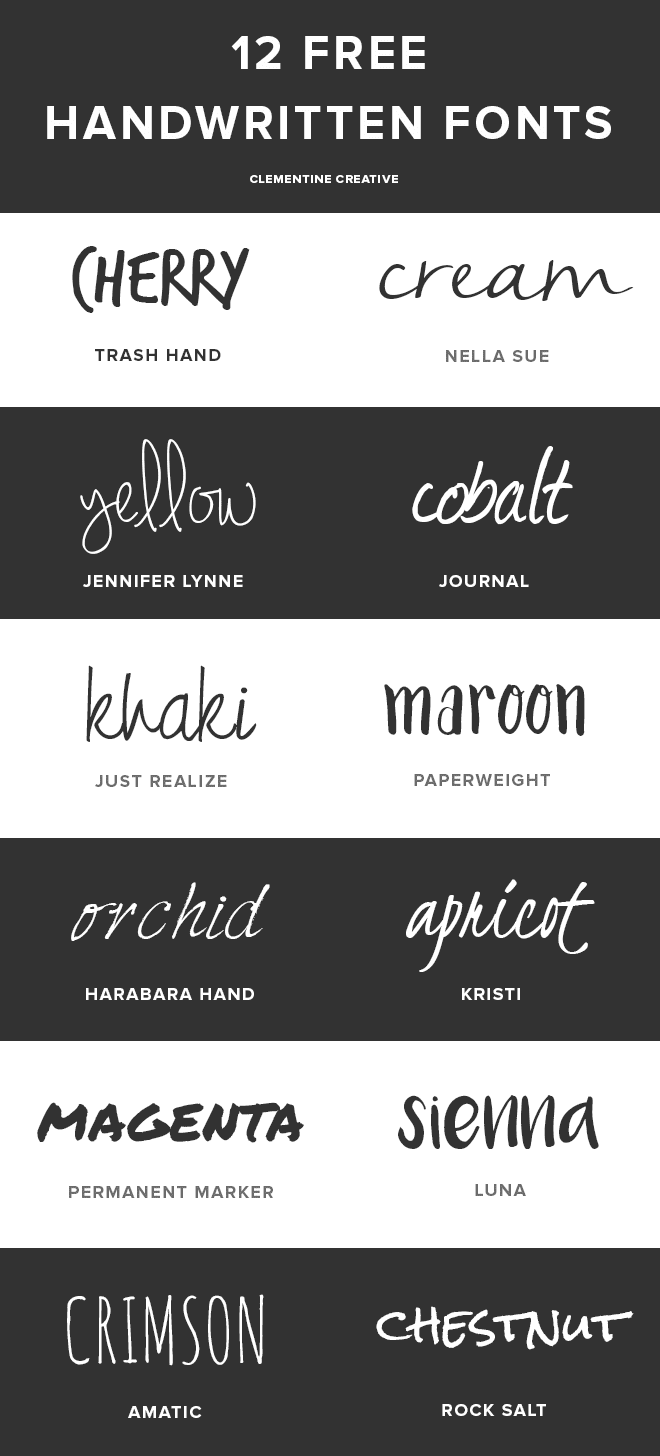
Fonts SVG PNG EPS DXF JPG AI Vector Qoutes File Handwritten Font Necklace SVG. The handwritten font has slightly skewed letters that lean both right and left. 1 2 3 4 5 6 7 8 9 10. Archive of freely downloadable fonts. Handwriting fonts are written with a pen, pencil, or marker. Browse and download handwriting fonts and generate images from custom text with handwriting fonts. Handwritten or font jewelry cute custom necklace meaningful personalized handwriting engraved words gift mom sister daughter grandma mother. Browse by alphabetical listing, by style, by author or by popularity. Craft a personalized note with one of these. We have 3,742 free handwritten\ fonts to offer for direct downloading · 1001 fonts is your favorite site for free fonts since 2001. Writing fonts include both printing and cursive styles and is less artistic than formal calligraphy. You can use it in both digital and print projects such as craft purposes, creative. Licensed for personal and commercial use. Download 10,000 fonts with one click for $19.95. This lends a fun, juvenile feel that would be perfect for any designs targeted at children (like invitations for a birthday party or a. The best selection of handwriting fonts for windows and macintosh.
25445 Script Handwritten Fonts 2020 Creative Fabrica. Browse and download handwriting fonts and generate images from custom text with handwriting fonts. Handwritten or font jewelry cute custom necklace meaningful personalized handwriting engraved words gift mom sister daughter grandma mother. Writing fonts include both printing and cursive styles and is less artistic than formal calligraphy. Download 10,000 fonts with one click for $19.95. Licensed for personal and commercial use. You can use it in both digital and print projects such as craft purposes, creative. This lends a fun, juvenile feel that would be perfect for any designs targeted at children (like invitations for a birthday party or a. Archive of freely downloadable fonts. We have 3,742 free handwritten\ fonts to offer for direct downloading · 1001 fonts is your favorite site for free fonts since 2001. Craft a personalized note with one of these. Handwriting fonts are written with a pen, pencil, or marker. The best selection of handwriting fonts for windows and macintosh. 1 2 3 4 5 6 7 8 9 10. The handwritten font has slightly skewed letters that lean both right and left. Browse by alphabetical listing, by style, by author or by popularity.
Download free handwritten fonts for commercial and personal use. 1 2 3 4 5 6 7 8 9 10. Download 10,000 fonts with one click for $19.95. The handwritten font has slightly skewed letters that lean both right and left. Handwritten fonts are nothing new, but they've gained popularity over the years. You can customize your experience with live font previews. It is so elegant, classy, strong and beautiful.
Custom Handwriting Necklace Gold Name Plate Necklace The Urban Smith. Writing fonts include both printing and cursive styles and is less artistic than formal calligraphy. 1 2 3 4 5 6 7 8 9 10. The handwritten font has slightly skewed letters that lean both right and left. Craft a personalized note with one of these. You can use it in both digital and print projects such as craft purposes, creative. This lends a fun, juvenile feel that would be perfect for any designs targeted at children (like invitations for a birthday party or a. Browse and download handwriting fonts and generate images from custom text with handwriting fonts. Archive of freely downloadable fonts. The best selection of handwriting fonts for windows and macintosh. Handwritten or font jewelry cute custom necklace meaningful personalized handwriting engraved words gift mom sister daughter grandma mother. Licensed for personal and commercial use. Browse by alphabetical listing, by style, by author or by popularity. Download 10,000 fonts with one click for $19.95. Handwriting fonts are written with a pen, pencil, or marker. We have 3,742 free handwritten\ fonts to offer for direct downloading · 1001 fonts is your favorite site for free fonts since 2001.
25445 Script Handwritten Fonts 2020 Creative Fabrica. Handwritten or font jewelry cute custom necklace meaningful personalized handwriting engraved words gift mom sister daughter grandma mother. You can use it in both digital and print projects such as craft purposes, creative. Craft a personalized note with one of these. 1 2 3 4 5 6 7 8 9 10. Licensed for personal and commercial use. Browse by alphabetical listing, by style, by author or by popularity. This lends a fun, juvenile feel that would be perfect for any designs targeted at children (like invitations for a birthday party or a. Writing fonts include both printing and cursive styles and is less artistic than formal calligraphy. Download 10,000 fonts with one click for $19.95. The best selection of handwriting fonts for windows and macintosh. Handwriting fonts are written with a pen, pencil, or marker. The handwritten font has slightly skewed letters that lean both right and left. Browse and download handwriting fonts and generate images from custom text with handwriting fonts. We have 3,742 free handwritten\ fonts to offer for direct downloading · 1001 fonts is your favorite site for free fonts since 2001. Archive of freely downloadable fonts.
Vintage Font Handcrafted Vector Script Alphabet Design Handwritten Brush Retro Stock Vector C Elnara Balayeva 183690858. You can use it in both digital and print projects such as craft purposes, creative. Licensed for personal and commercial use. Download 10,000 fonts with one click for $19.95. Handwritten or font jewelry cute custom necklace meaningful personalized handwriting engraved words gift mom sister daughter grandma mother. This lends a fun, juvenile feel that would be perfect for any designs targeted at children (like invitations for a birthday party or a. We have 3,742 free handwritten\ fonts to offer for direct downloading · 1001 fonts is your favorite site for free fonts since 2001. The handwritten font has slightly skewed letters that lean both right and left. 1 2 3 4 5 6 7 8 9 10. Handwriting fonts are written with a pen, pencil, or marker. Craft a personalized note with one of these. Browse and download handwriting fonts and generate images from custom text with handwriting fonts. Archive of freely downloadable fonts. Writing fonts include both printing and cursive styles and is less artistic than formal calligraphy. Browse by alphabetical listing, by style, by author or by popularity. The best selection of handwriting fonts for windows and macintosh.
A Handmade Font Font Ffonts Net. You can use it in both digital and print projects such as craft purposes, creative. Archive of freely downloadable fonts. This lends a fun, juvenile feel that would be perfect for any designs targeted at children (like invitations for a birthday party or a. The best selection of handwriting fonts for windows and macintosh. Handwriting fonts are written with a pen, pencil, or marker. 1 2 3 4 5 6 7 8 9 10. Licensed for personal and commercial use. Download 10,000 fonts with one click for $19.95. Writing fonts include both printing and cursive styles and is less artistic than formal calligraphy. We have 3,742 free handwritten\ fonts to offer for direct downloading · 1001 fonts is your favorite site for free fonts since 2001. Handwritten or font jewelry cute custom necklace meaningful personalized handwriting engraved words gift mom sister daughter grandma mother. Craft a personalized note with one of these. Browse by alphabetical listing, by style, by author or by popularity. The handwritten font has slightly skewed letters that lean both right and left. Browse and download handwriting fonts and generate images from custom text with handwriting fonts.
Handwritten or font jewelry cute custom necklace meaningful personalized handwriting engraved words gift mom sister daughter grandma mother.
A Handmade Font Font Ffonts Net. Craft a personalized note with one of these. Download 10,000 fonts with one click for $19.95. You can use it in both digital and print projects such as craft purposes, creative. Writing fonts include both printing and cursive styles and is less artistic than formal calligraphy. Browse by alphabetical listing, by style, by author or by popularity. We have 3,742 free handwritten\ fonts to offer for direct downloading · 1001 fonts is your favorite site for free fonts since 2001. Handwritten or font jewelry cute custom necklace meaningful personalized handwriting engraved words gift mom sister daughter grandma mother. Archive of freely downloadable fonts. The handwritten font has slightly skewed letters that lean both right and left. The best selection of handwriting fonts for windows and macintosh. Handwriting fonts are written with a pen, pencil, or marker. 1 2 3 4 5 6 7 8 9 10. Licensed for personal and commercial use. This lends a fun, juvenile feel that would be perfect for any designs targeted at children (like invitations for a birthday party or a. Browse and download handwriting fonts and generate images from custom text with handwriting fonts.
Down fonts, free fonts download, calligraphy fonts, tattoo fonts, valentine fonts, fontsdata, blog fonts, dafont top, fontsme The jacklyn signature font is modern and sophisticated styling font which perfect for branding, logo, photography and signature. Ready to personalize and share in facebook and twitter. Writing fonts include both printing and cursive styles and is less artistic than formal calligraphy. Handwritten fonts (11,679 fonts) | page 1. You found 8,397 handwritten script and handwritten fonts. Handwriting fonts are written with a pen, pencil, or marker. Handwritten or font jewelry cute custom necklace meaningful personalized handwriting engraved words gift mom sister daughter grandma mother. Download 10,000 fonts with one click for $19.95. 1 2 3 4 5 6 7 8 9 10.